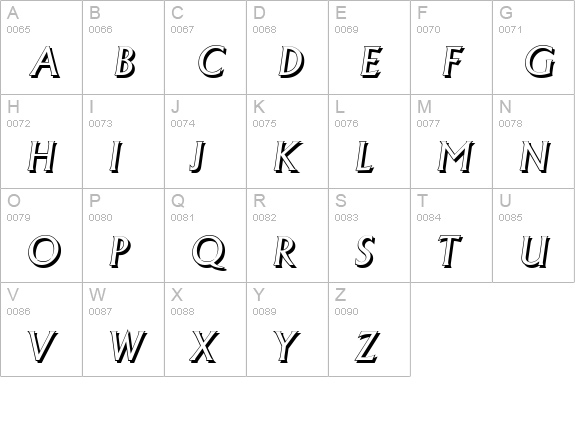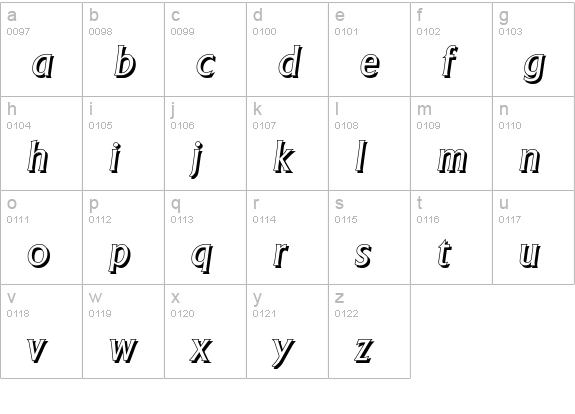
AdelonShadow-Italic is a distinctive, italic variant in the AdelonShadow typeface family \xE2\x80\x94 well suited to design and typography projects.
AdelonShadow-Italic is a stunning and elegant font that exudes sophistication and class. With its delicate yet bold italic design, this font is perfect for adding a touch of luxury to any project. The curves and flourishes of AdelonShadow-Italic create a sense of timeless beauty that will captivate your audience. The best part? AdelonShadow-Italic is available for free download at FontsMarket.com! You can easily access this exquisite font and elevate your designs without breaking the bank. Whether you're working on a branding project, invitation, or any other creative endeavor, AdelonShadow-Italic is sure to make a lasting impression. Don't miss out on this opportunity to enhance your designs with the elegance of AdelonShadow-Italic. Download it for free today and take your projects to the next level!